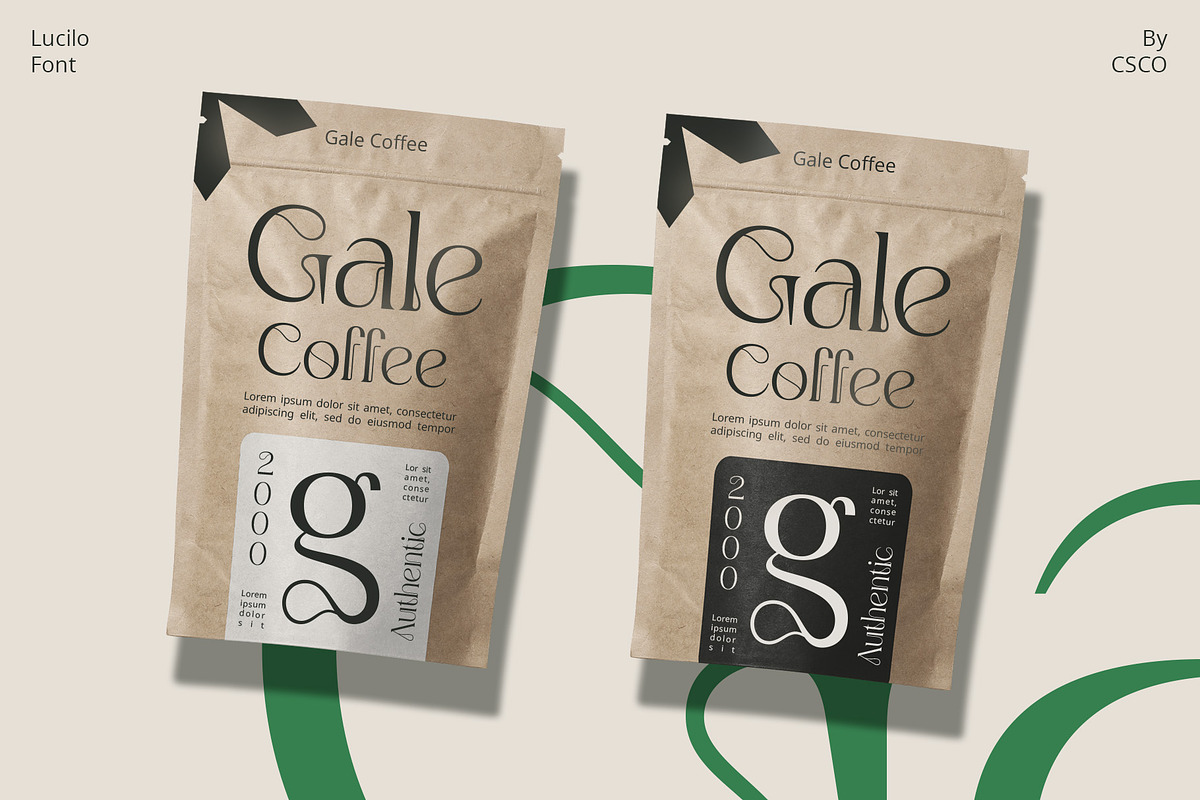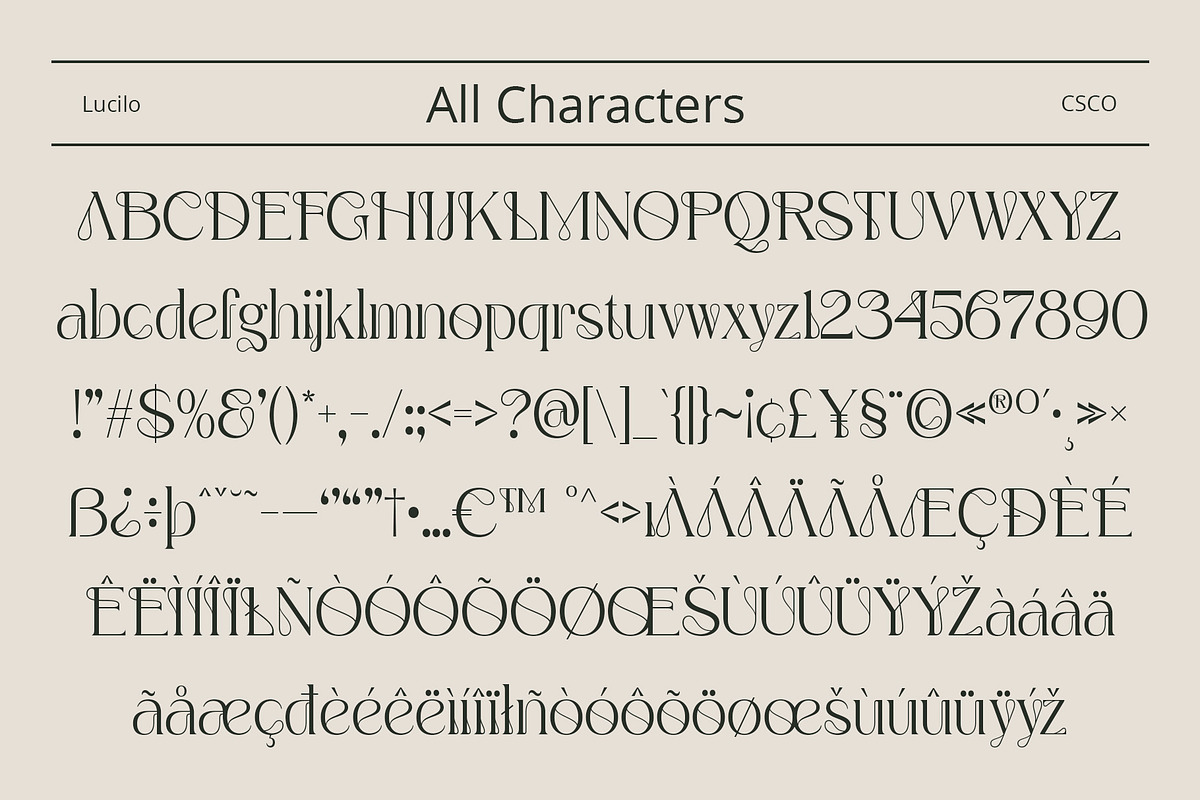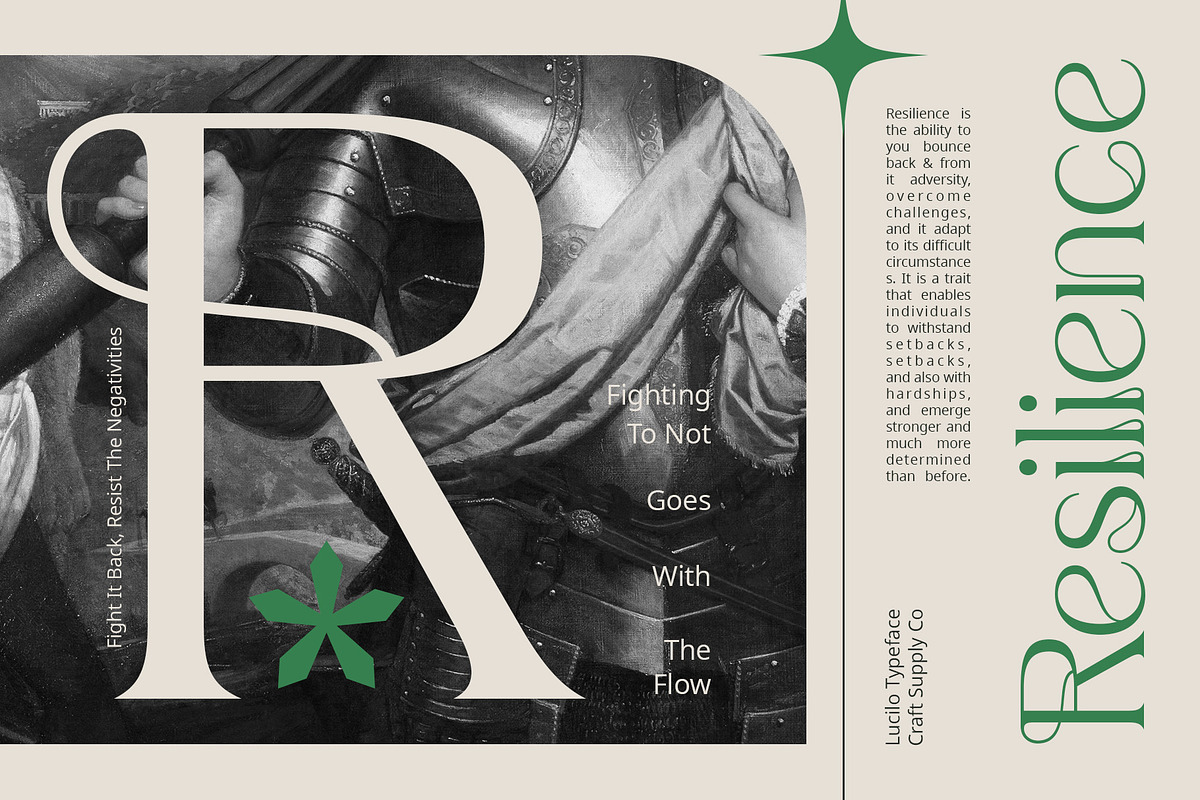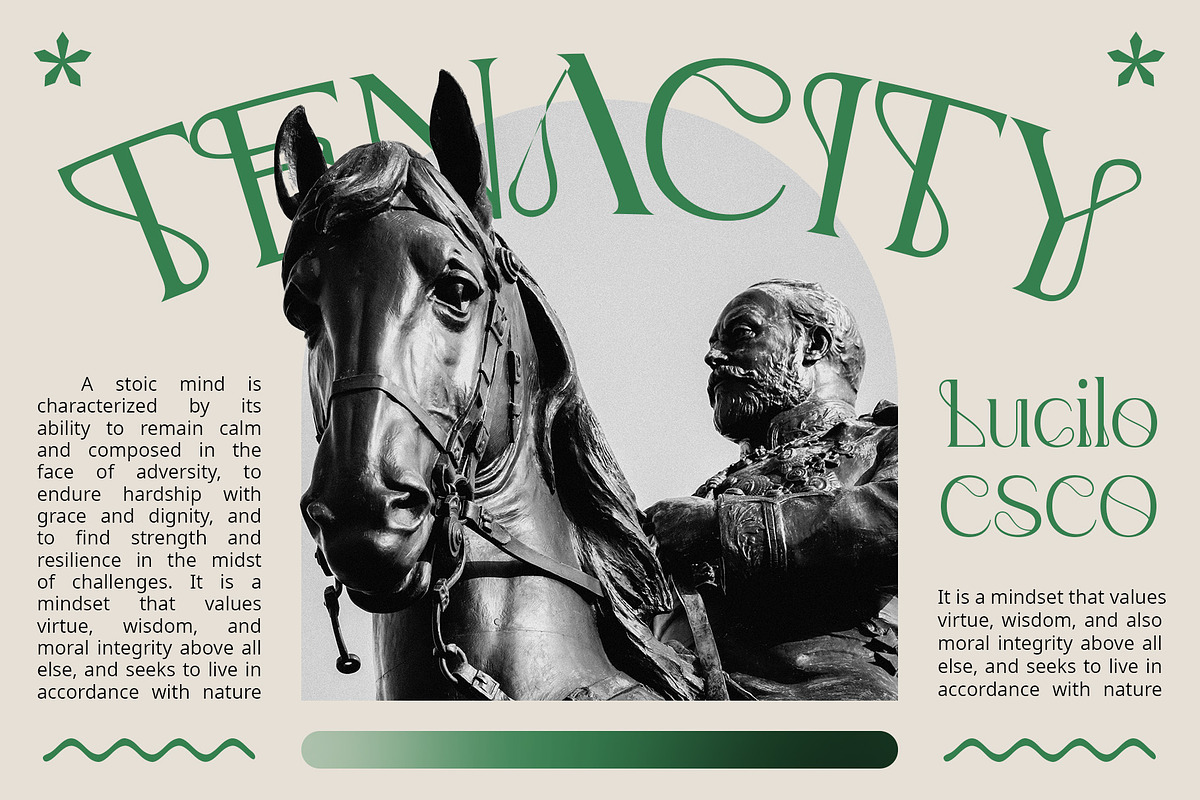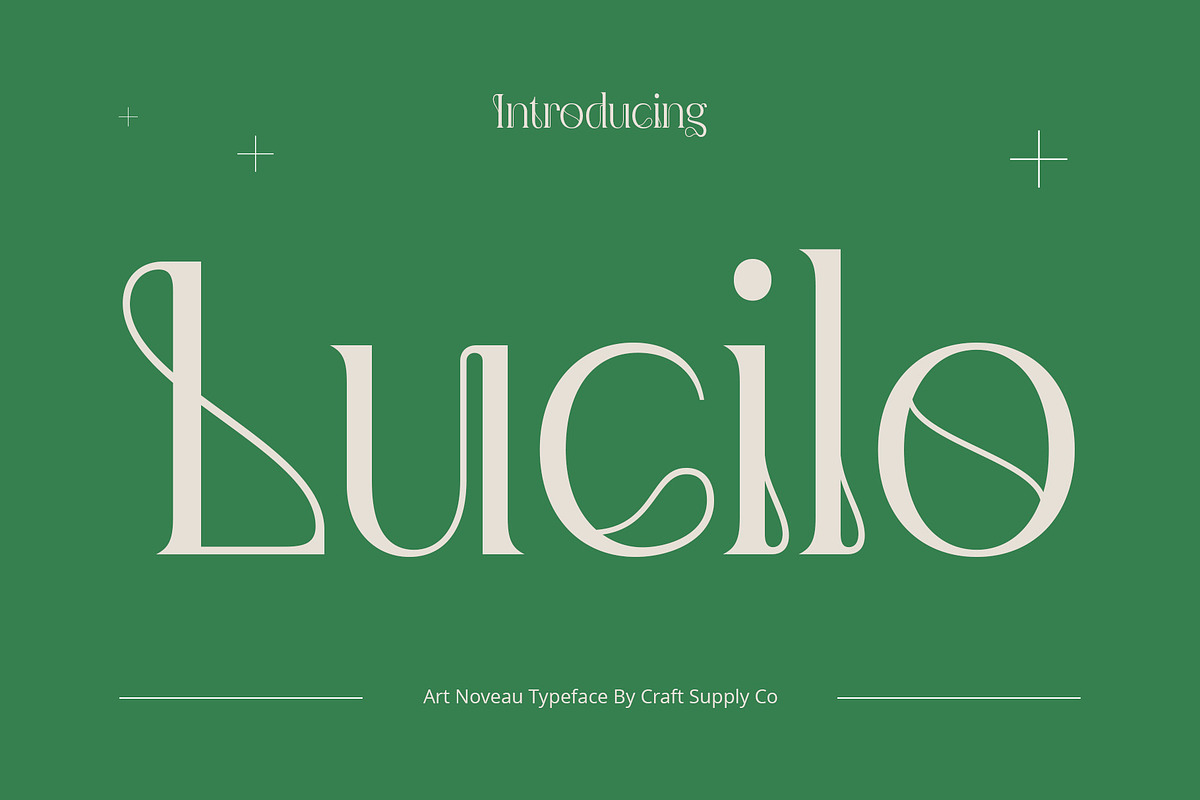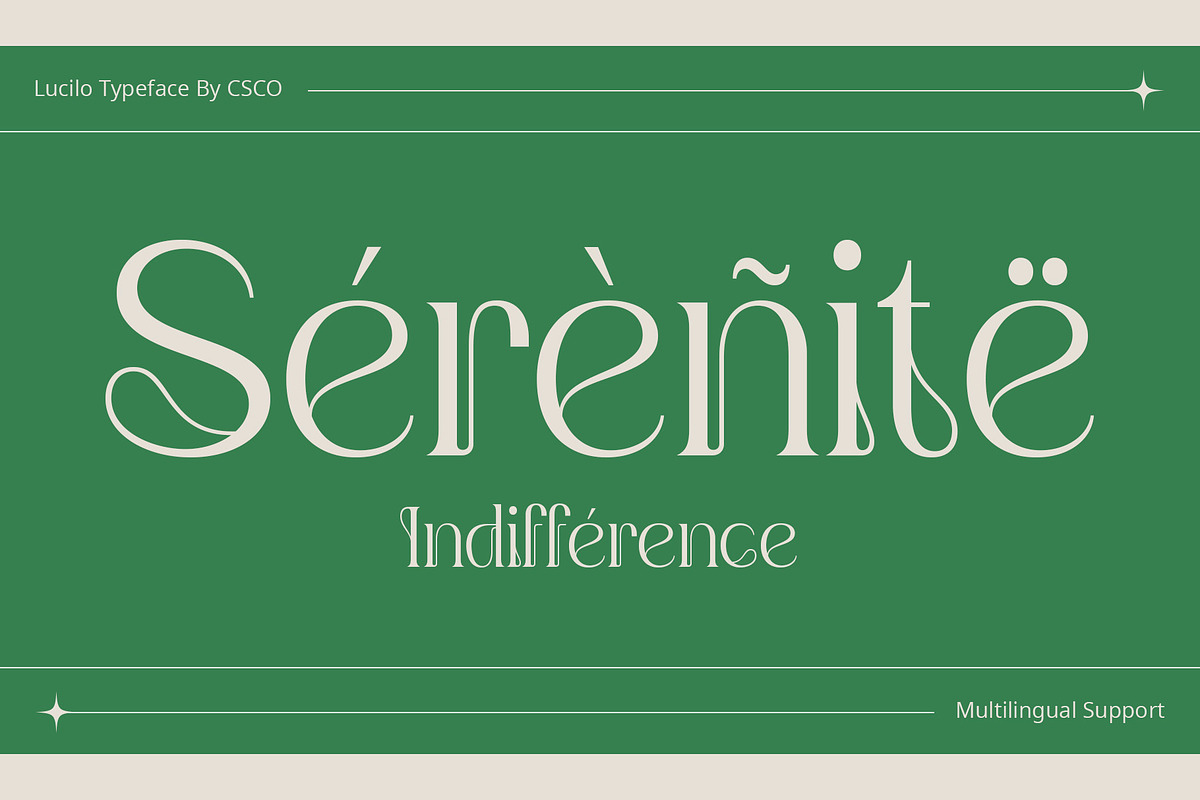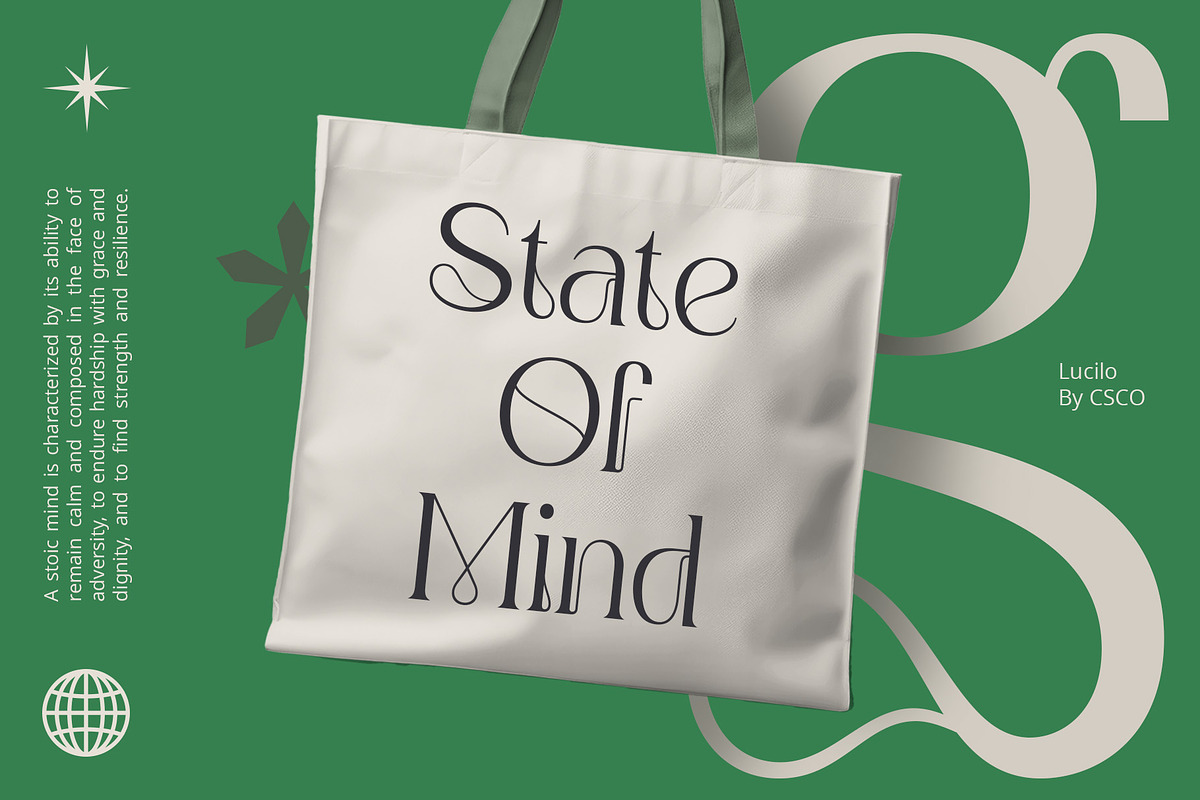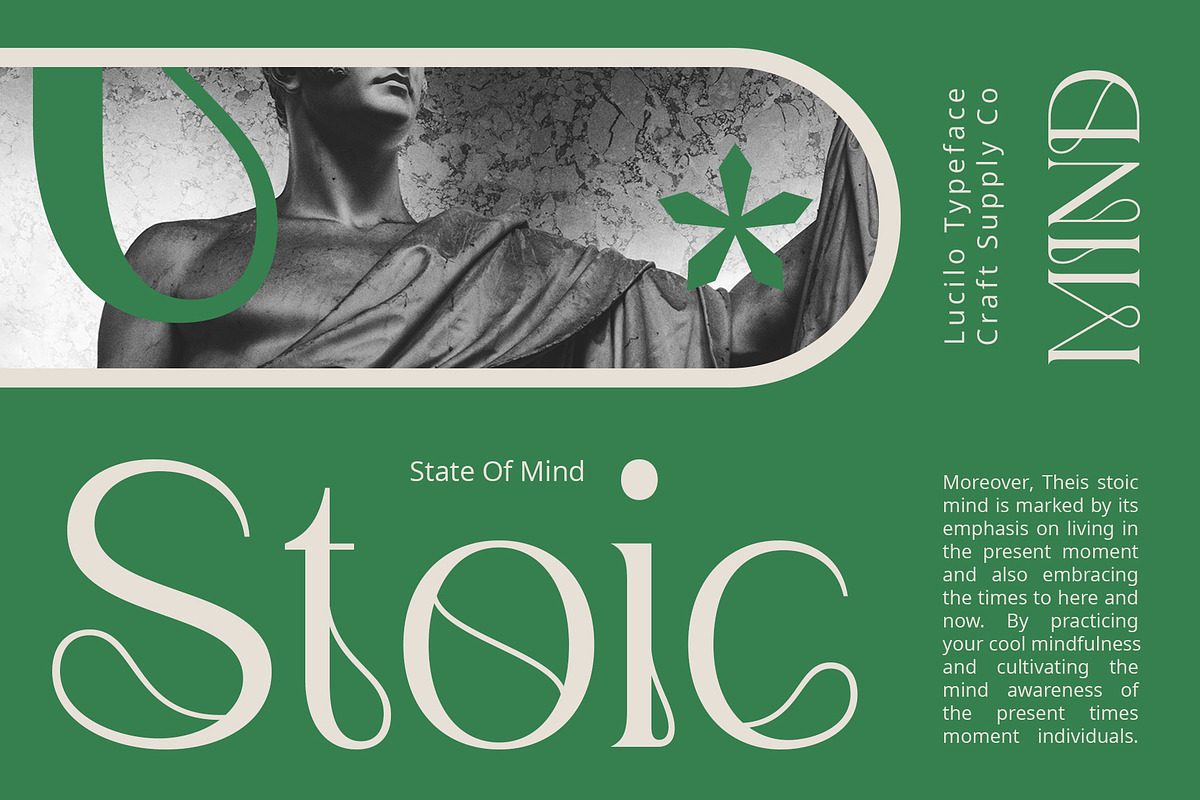
Lucilo – Art Noveau Font
Lucilo – Art Nouveau Font: Where Elegance Meets Beauty
Inspired by Art Nouveau Lucilo – Art Nouveau Font draws inspiration from the beauty serif and intricacy of the Art Nouveau movement. With graceful curves and intricate details reminiscent of this timeless artistic style, Lucilo captures its essence with finesse.
Beauty Look and Feel Experience the captivating beauty and timeless elegance of Lucilo Font. Its graceful strokes and delicate features evoke a sense of sophistication, adding a touch of refined beauty to every design project it graces.
Elegant Vibes Elevate your designs with the sophisticated and elegant vibes of Lucilo Font. With its refined aesthetic, Lucilo captivates viewers and commands attention, making it the perfect choice for projects that demand a touch of class and elegance.
Lucilo Font brings a sense of refinement and grace to any project, whether it’s a wedding invitation, a logo for a luxury brand, or an editorial layout. Its versatility and timeless beauty make it a valuable asset for designers seeking to create visually stunning and sophisticated designs. With Lucilo Font, every design becomes a masterpiece, exuding elegance and charm that leave a lasting impression on viewers.